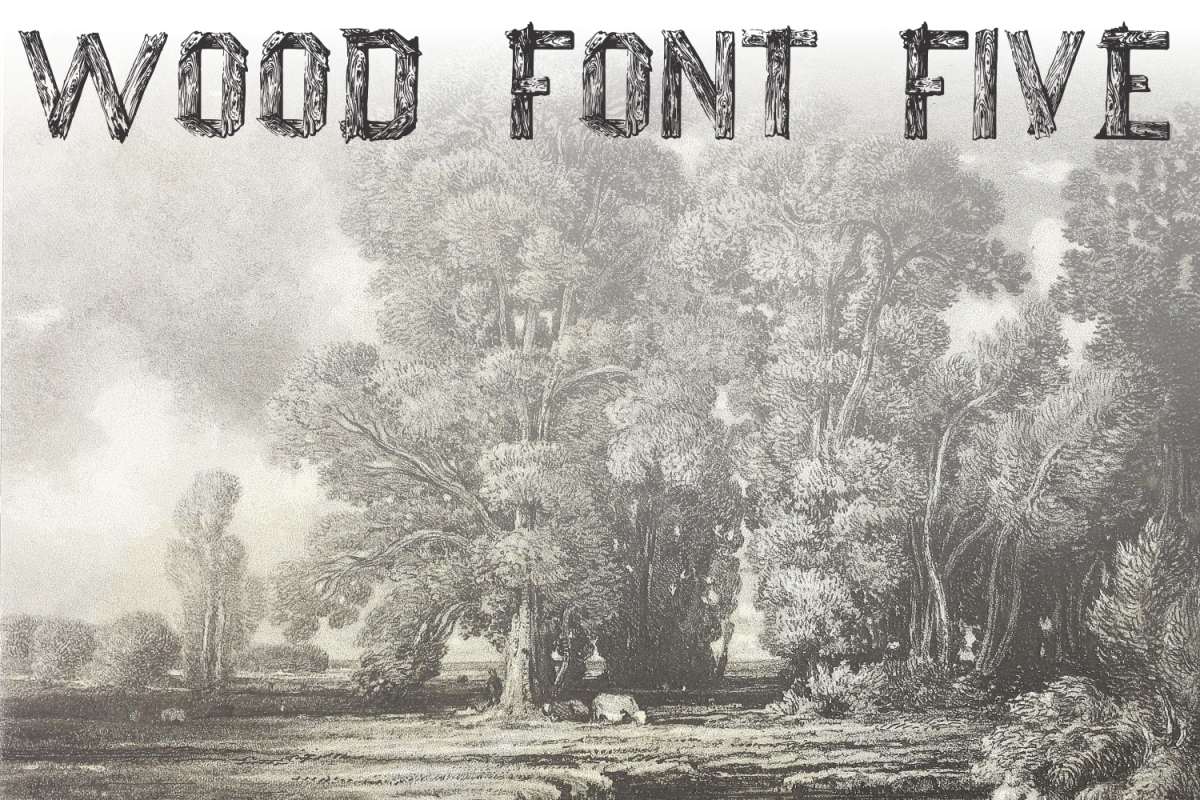
Wood Font Five
A display and decorative font built upon the theme of wood. Great for display purposes in projects about nature and environmental topics